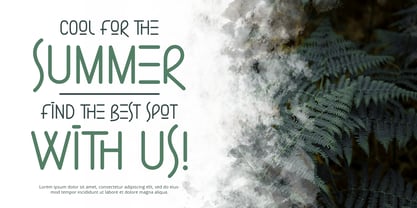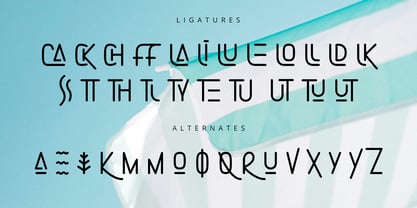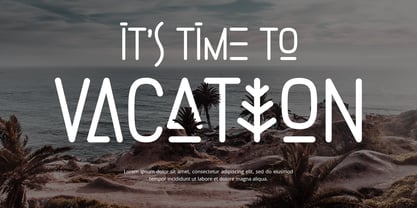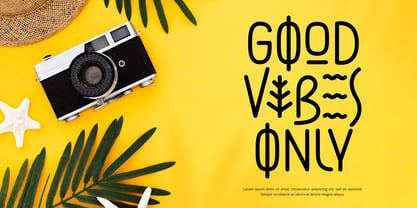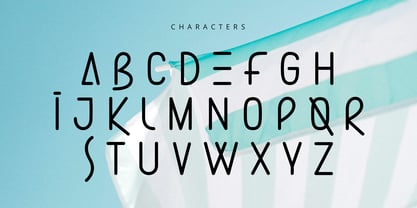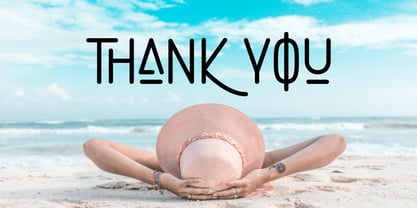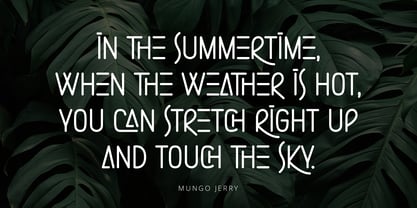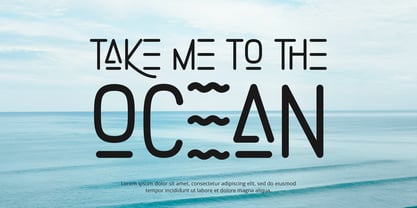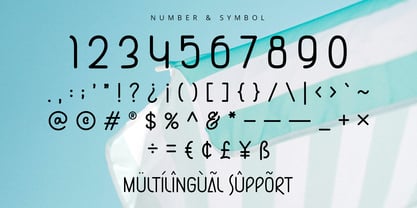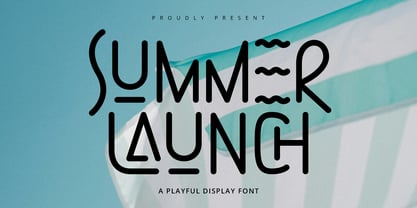
Summer Launch
The Summer Launch Font Family was designed by Nadia Salsabila and published by Alpaprana. Summer Launch contains 1 styles. More about this family
Summer Launch is playful display font with modern feels. It will be perfectly used for Branding, Logo Design, Lettering, Logotype, Clothing, Poster, magazine, packaging, posters, shopping bags, t-shirts, book covers, photography, special events and other design project. I hope you enjoy this font. If you have any questions please don't hesitate to drop me a message :) Best, Alpaprana